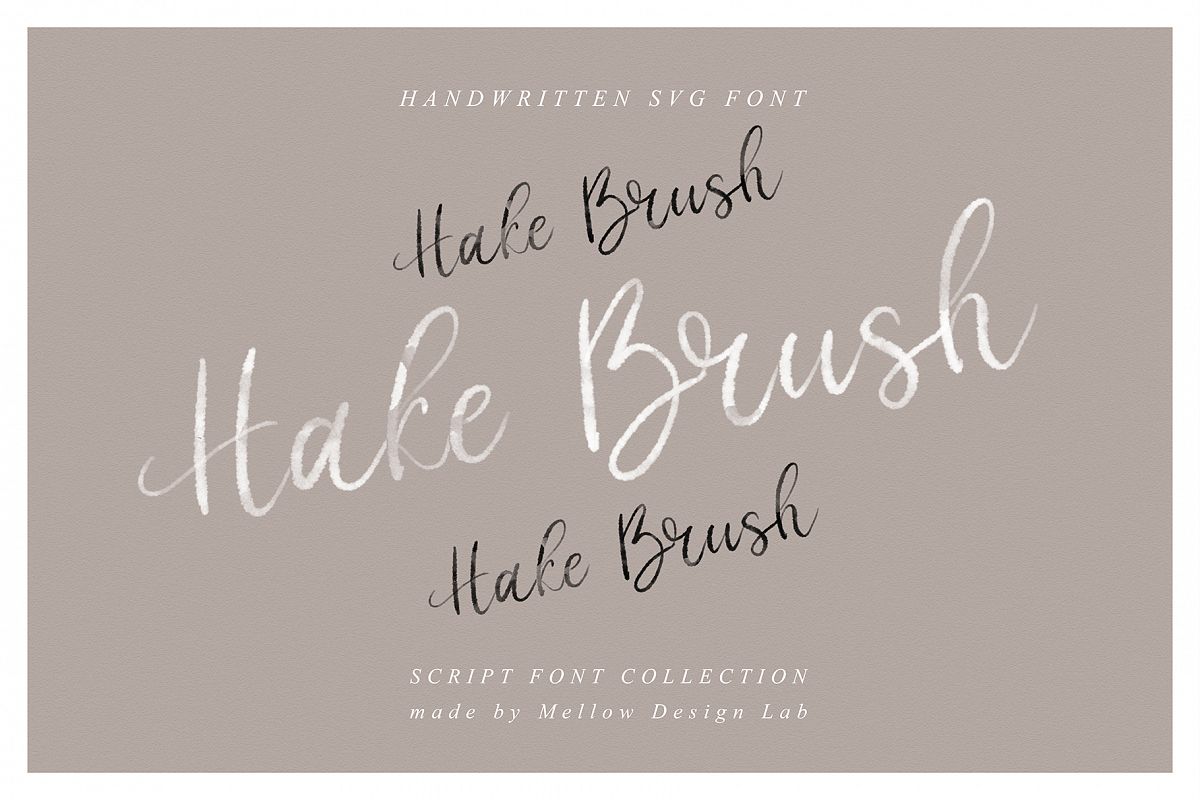
Hake Brush
Please note: The SVG font in this pack require Photoshop CC 2017 or Illustrator CC 2018 (or newer) to use.Also included in this package Brush font in OTF, TTF and WOFF format. It does not require special software and it works in most programs.Font that will give tenderness to your project. Written by hand, it preserves transparency and texture. Combine it with other fonts and add style in your project. This handwritten font is ideal for branding and decorate your any project.This font are perfect for wedding invitation or your blog. Also with their help, you can create a logo or beautiful frame for your home. Or just use for your small business, book covers, stationery, marketing, magazines and more.What you get?